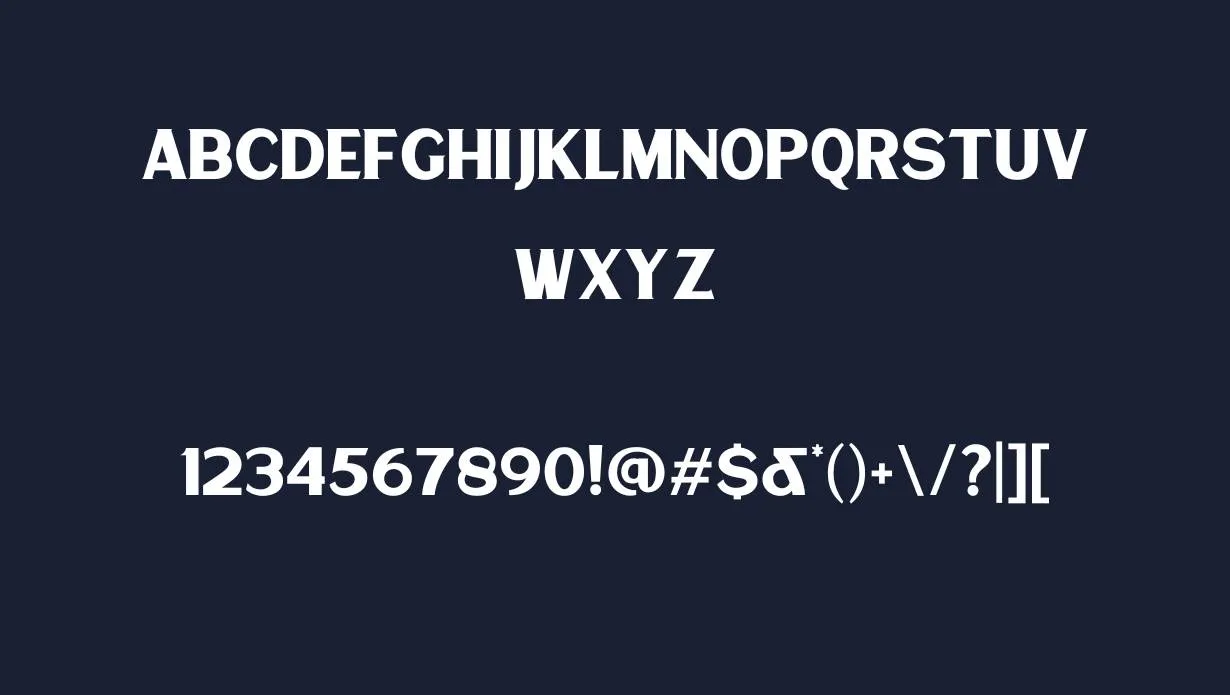
Matrole Font is a bold and impactful typeface that exudes a sense of strength and power. Its sturdy lines and commanding presence make it ideal for headlines, posters, and strong branding.
| Name | Matrole Font |
| Designer | ViactionType |